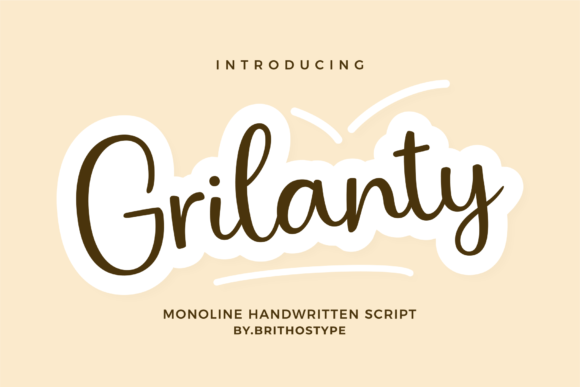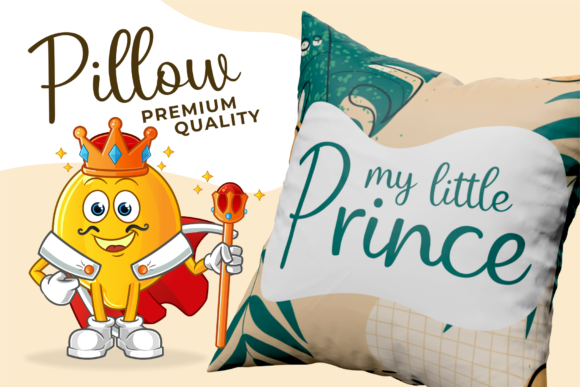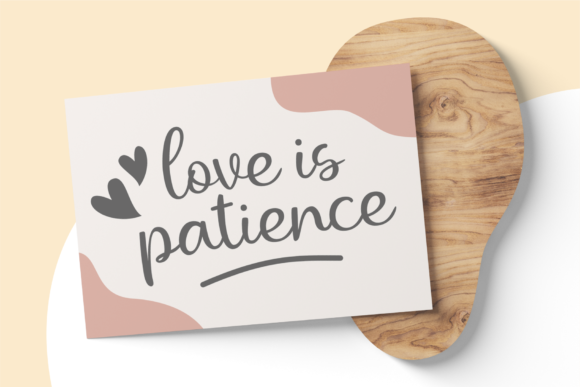
About Grilanty Font
Grilanty is a delightful and sweet handwritten font that exudes charm and elegance. With a perfect blend of classy calligraphic influences and contemporary trends, Grilanty stands out as a versatile and stylish choice for a wide range of design projects. Here are some creative ways to use the Grilanty font and showcase its beauty:
1. Wedding Invitations: Use Grilanty font for elegant and romantic wedding invitations, setting the tone for a memorable and special event.
2. Logo Design: Incorporate Grilanty font into logo designs for businesses that want to convey sophistication and a touch of sweetness.
3. Branding: Apply Grilanty font in branding materials, such as business cards, letterheads, and packaging, to create a cohesive and stylish brand identity.
4. Quote Graphics: Design beautiful quote graphics using Grilanty font, perfect for social media posts and inspirational content.
5. Greeting Cards: Create exquisite greeting cards for various occasions, such as birthdays, anniversaries, and holidays, using Grilanty font to add a personal and elegant touch.
6. Product Labels: Use Grilanty font for product labels, adding a sense of luxury and refinement to the packaging.
7. Magazine Covers: Apply Grilanty font to design eye-catching and elegant magazine covers that draw readers’ attention.
8. Calligraphy Art: Create stunning calligraphy art pieces using Grilanty font, combining artistic flair with a contemporary twist.
9. Website Headings: Incorporate Grilanty font into website headings or banners to add a touch of elegance and sophistication to your online presence.
10. Stationery Design: Use Grilanty font to design stylish stationery, including notepads, envelopes, and thank-you cards.
11. Menu Cards: Apply Grilanty font to design elegant menu cards for restaurants and cafes, elevating the dining experience.
12. Art Prints: Create beautiful art prints using Grilanty font, featuring quotes, phrases, or words that resonate with your audience.
13. Event Signage: Use Grilanty font for event signage, adding a touch of class and charm to weddings, parties, and other special occasions.
In summary, Grilanty is a sweet and elegant handwritten font that brings together classic calligraphy and contemporary trends, making it a favorite for a wide range of design projects. Embrace its charm and sophistication to elevate your creations and captivate your audience. Whether used in wedding invitations, branding materials, or quote graphics, Grilanty font adds a touch of sweetness and elegance that will surely make your designs stand out. Fall in love with Grilanty and let it take your projects to the highest levels of style and creativity.